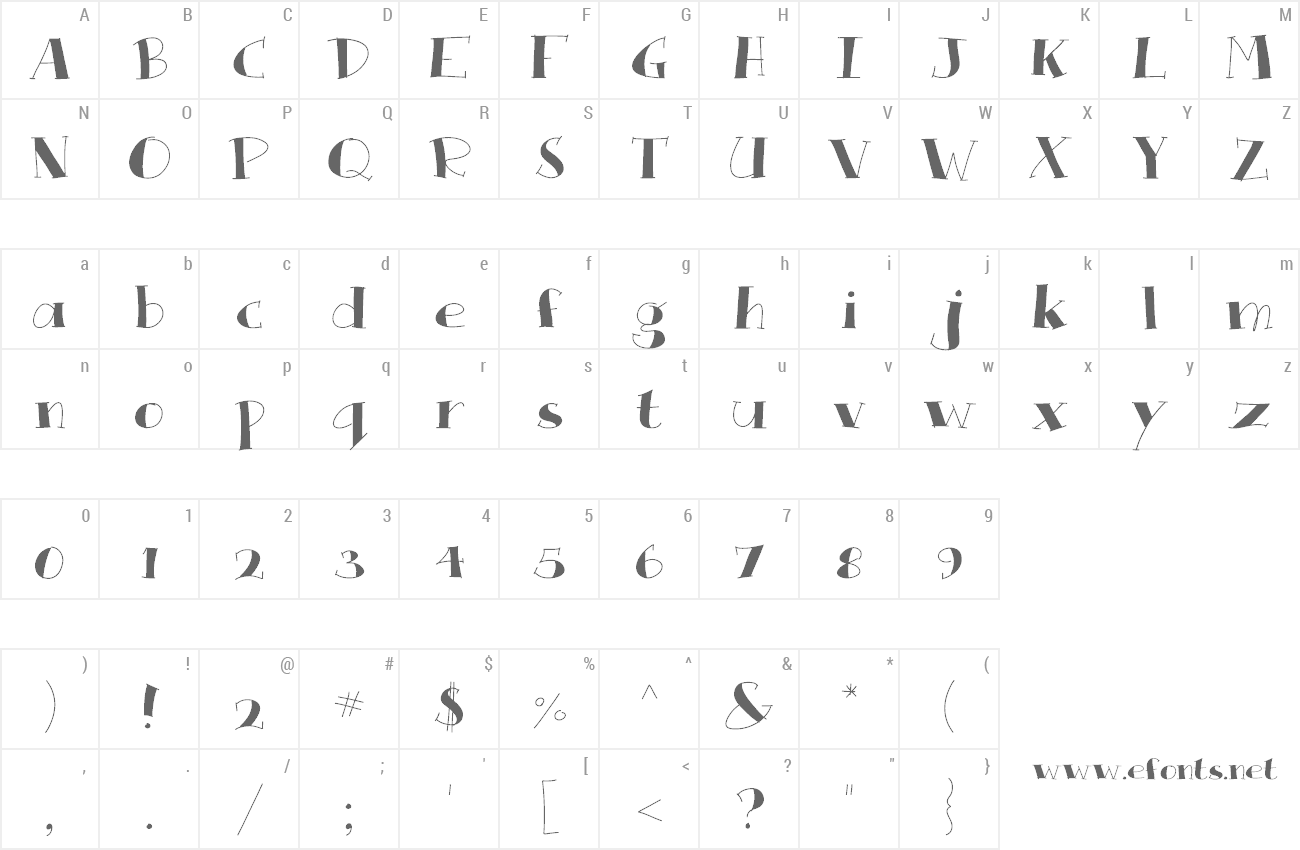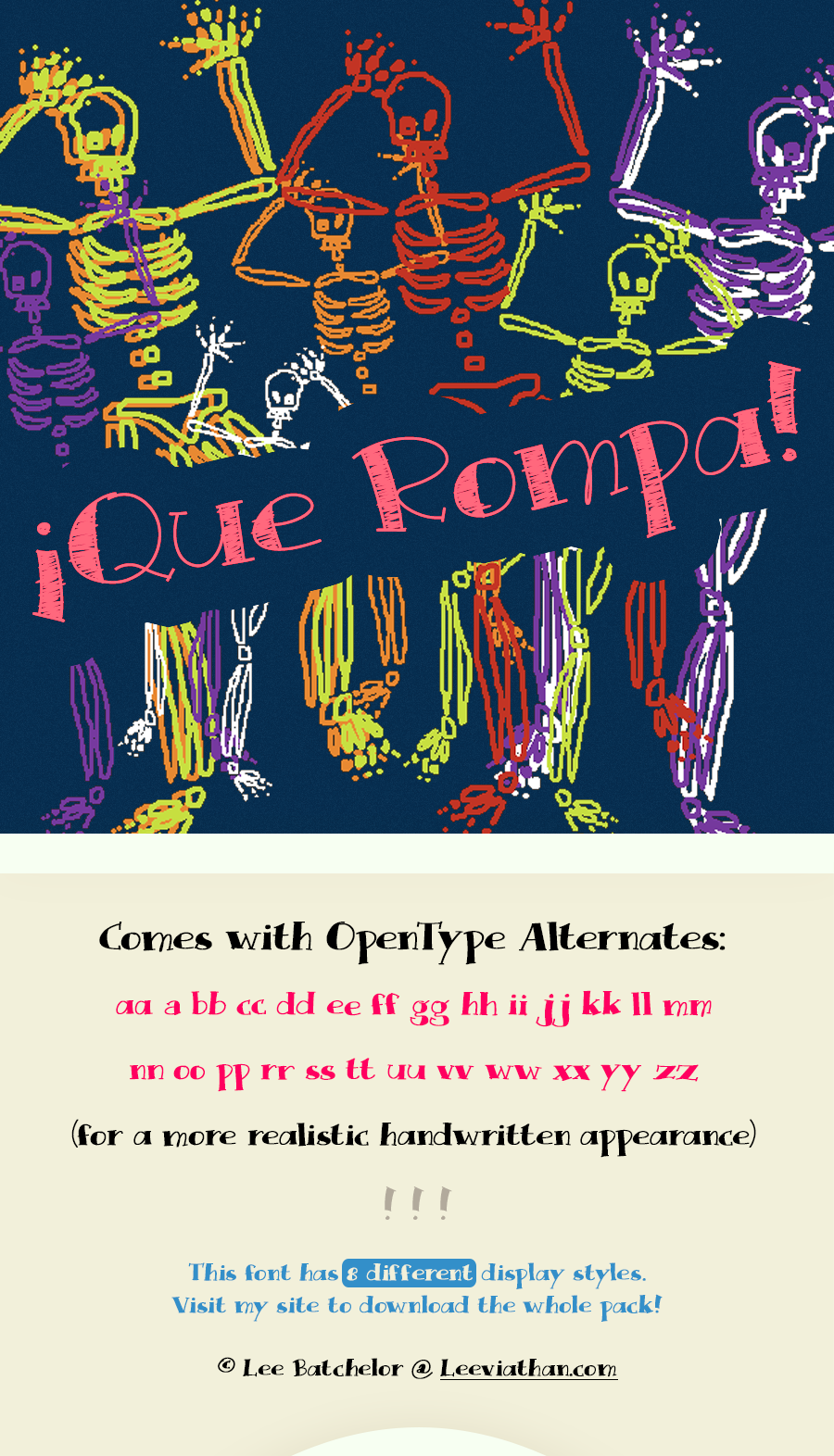
Preview and download Que Rompa Font. Created by Lee Batchelor in Fancy Cartoon styles with Free for personal use license.
This font is free for personal use. Please donate $5+ for a commercial license. That would be great, you're great. Thanks! There are 8 display styles for this font, check them out and download them all in one package for $15 here: http://leeviathan.com/portfolio-item/que-rompa/ Cool thing: As with all my handwritten fonts, this font utilizes OpenType contextual and stylistic alternatives for a more realistic handwritten appearance. |